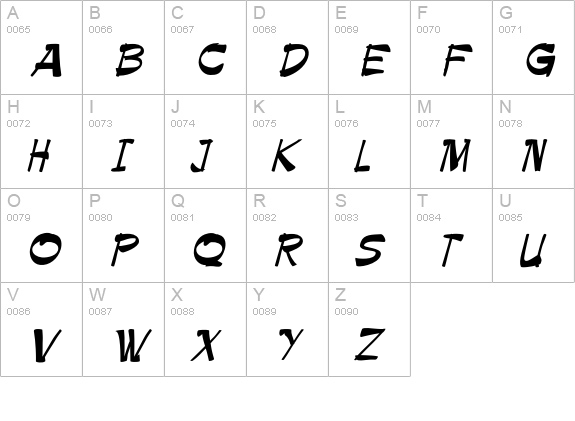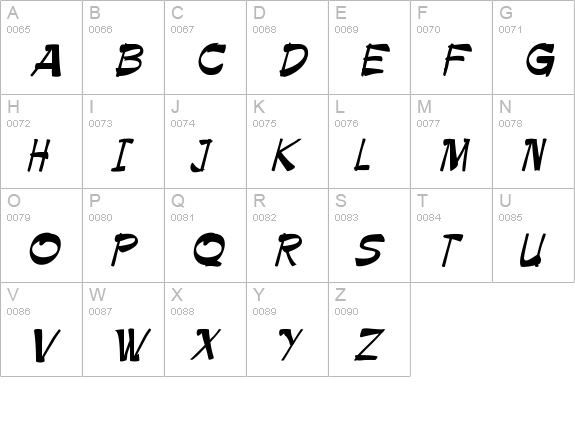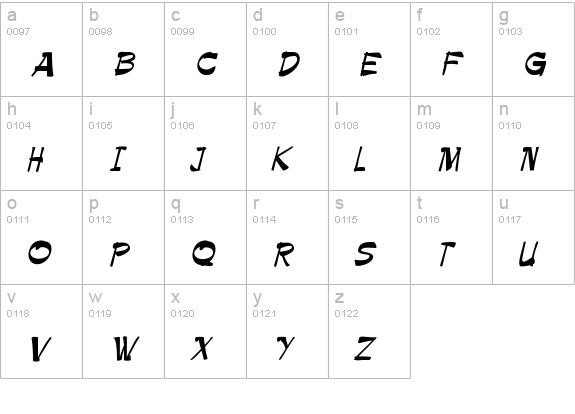
PaintbrushICG Font Details
PaintbrushICG is a captivating and artistic font that exudes a sense of creativity and uniqueness. With its hand-drawn appearance, this font will add a touch of whimsy and charm to any design project. Whether you are creating a logo, poster, or website, PaintbrushICG will make your text stand out with its playful and inviting style. What sets PaintbrushICG apart is not just its stunning aesthetics, but also the fact that it is available for free. Yes, you read that right - this incredible font can be downloaded without any cost. It's the perfect solution for designers and creatives on a budget, as you can enhance your work with a high-quality font without spending a dime. To get your hands on PaintbrushICG, simply head over to FontsMarket.com, a renowned font resource platform. There, you will find the font available for free download, allowing you to unleash your creativity without any restrictions. Don't miss out on this opportunity to elevate your designs and make a lasting impression. So, whether you're working on a personal project or a professional assignment, PaintbrushICG is the ideal font choice. Its free availability and visually captivating style make it a must-have for any design enthusiast. Download PaintbrushICG from FontsMarket.com today and let your imagination run wild.